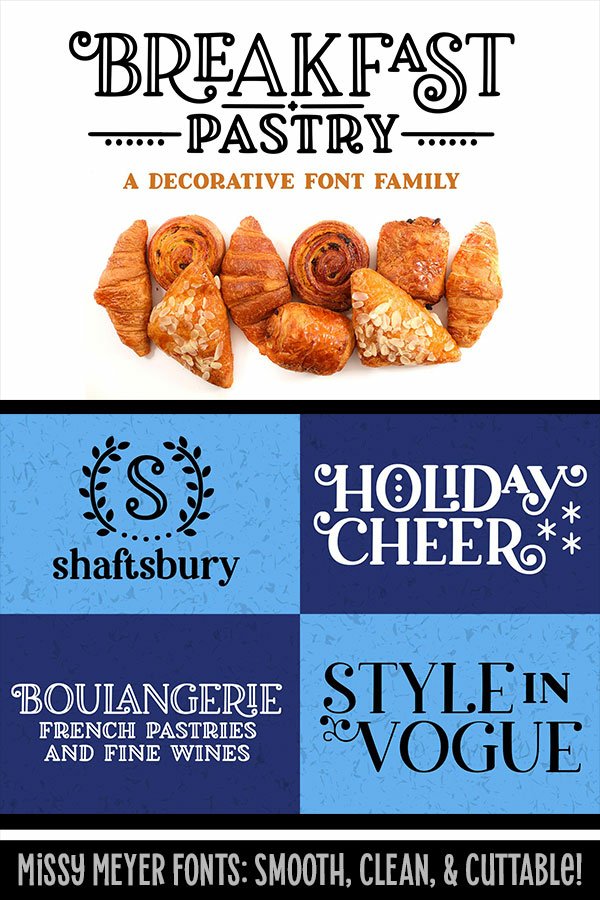
Breakfast Pastry Regular Font . all three breakfast pastry fonts include: breakfast pastry font is a beautiful decorative font family by missy meyer. buy & download breakfast pastry regular, a font by missy meyer. He designed it with the specific feature of. all three breakfast pastry fonts include: Learn more about its features, similar fonts, and font pairing.